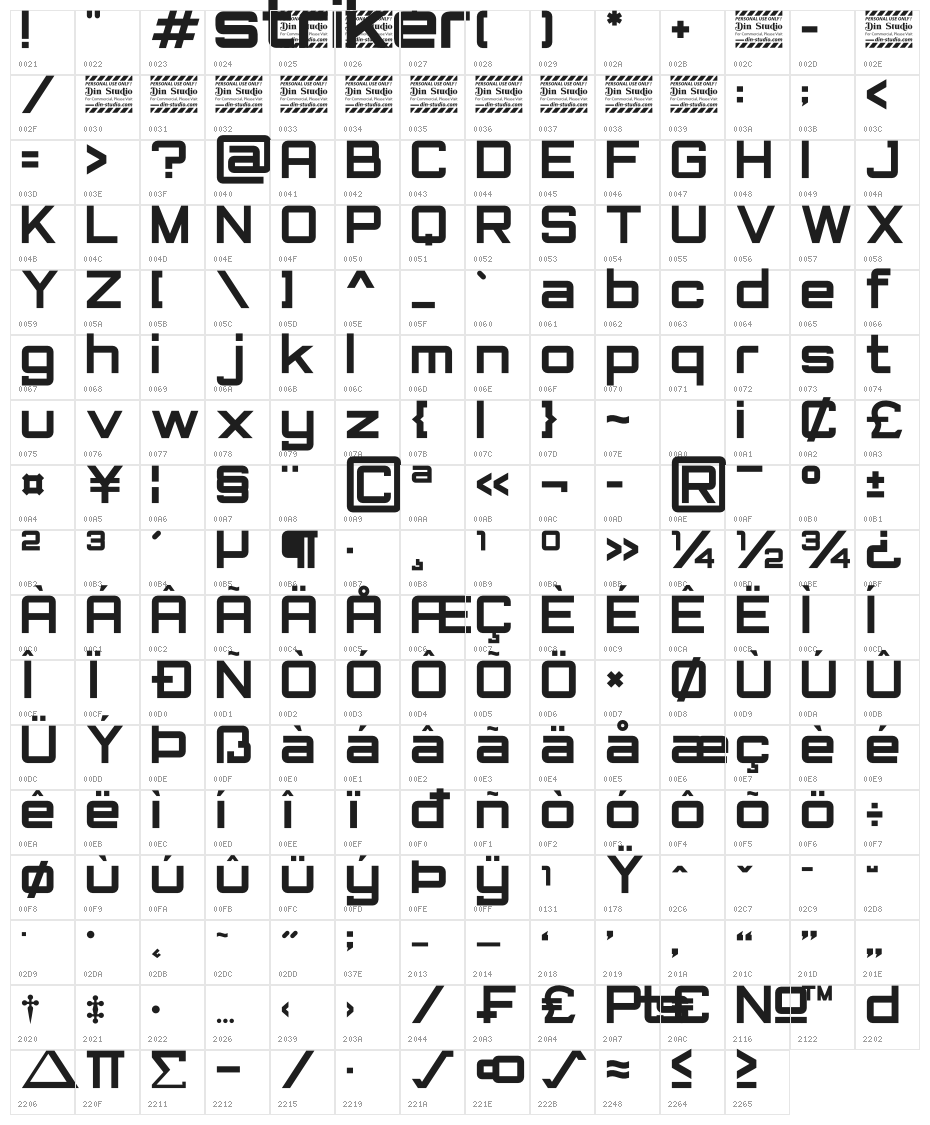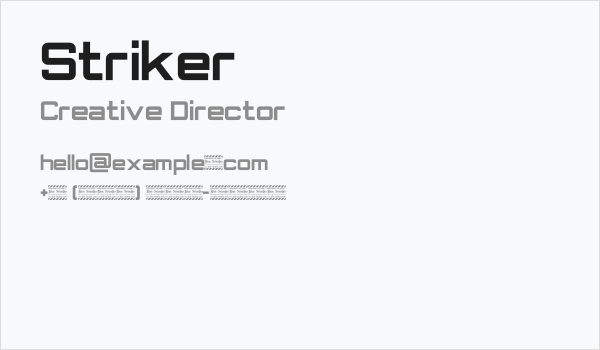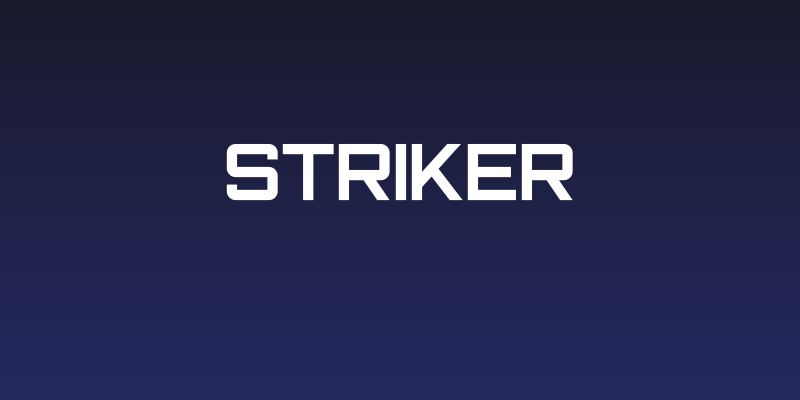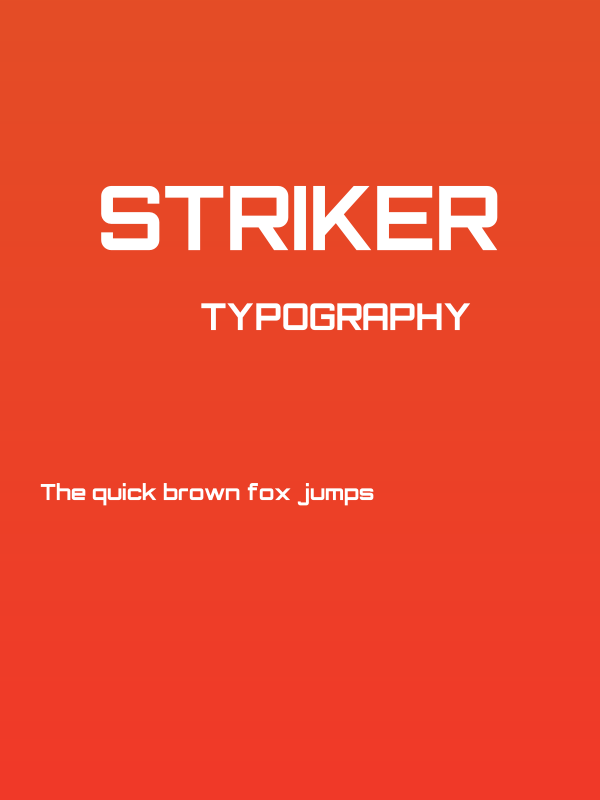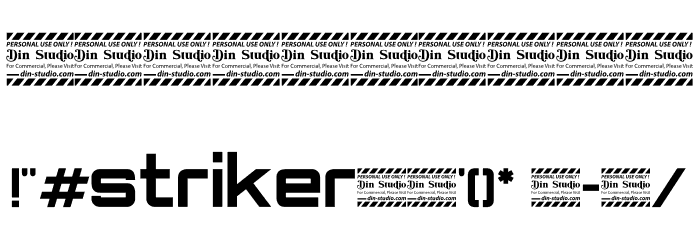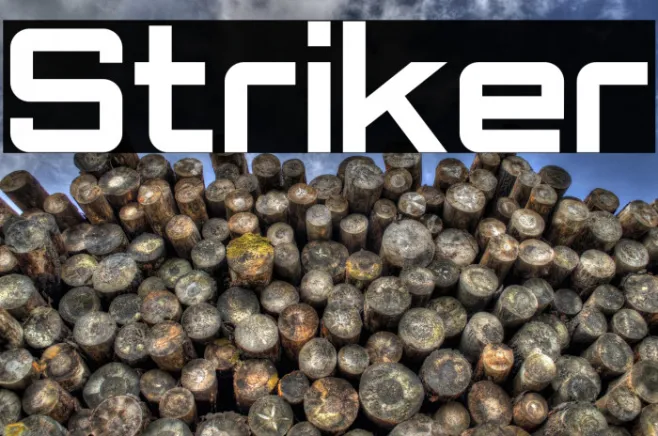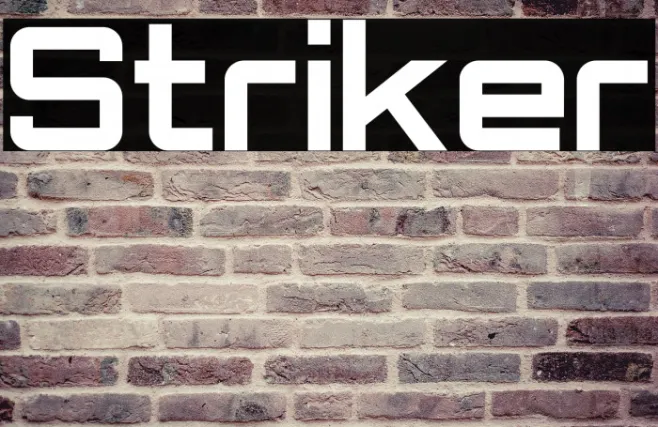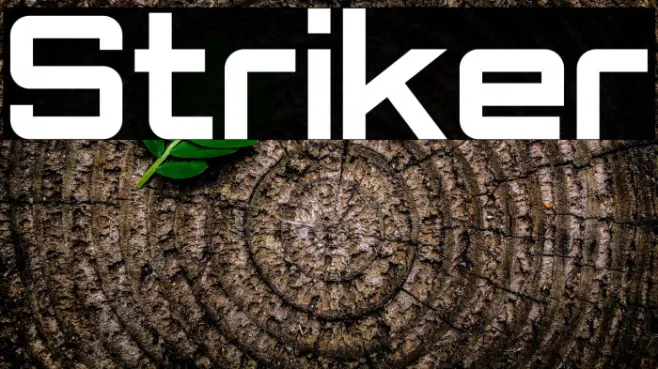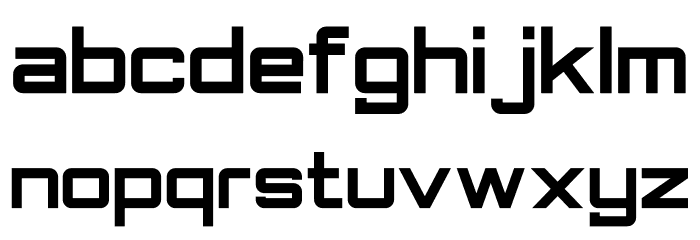
Striker Font
Striker Description
This font features a modern, geometric design with a strong, bold presence. The characters are constructed with straight lines and sharp angles, giving it a futuristic and technical appearance. The uppercase letters are uniform in height, while the lowercase letters maintain a consistent baseline, enhancing readability. The numerals and special characters follow the same design principles, ensuring a cohesive look across all text. The font's clean lines and structured form make it suitable for projects that require a contemporary and assertive style.
| Use Case | Logos, Headlines, Branding |
| Proposed Projects | Ideal for technology branding, sports team logos, video game interfaces, and modern advertising campaigns. |